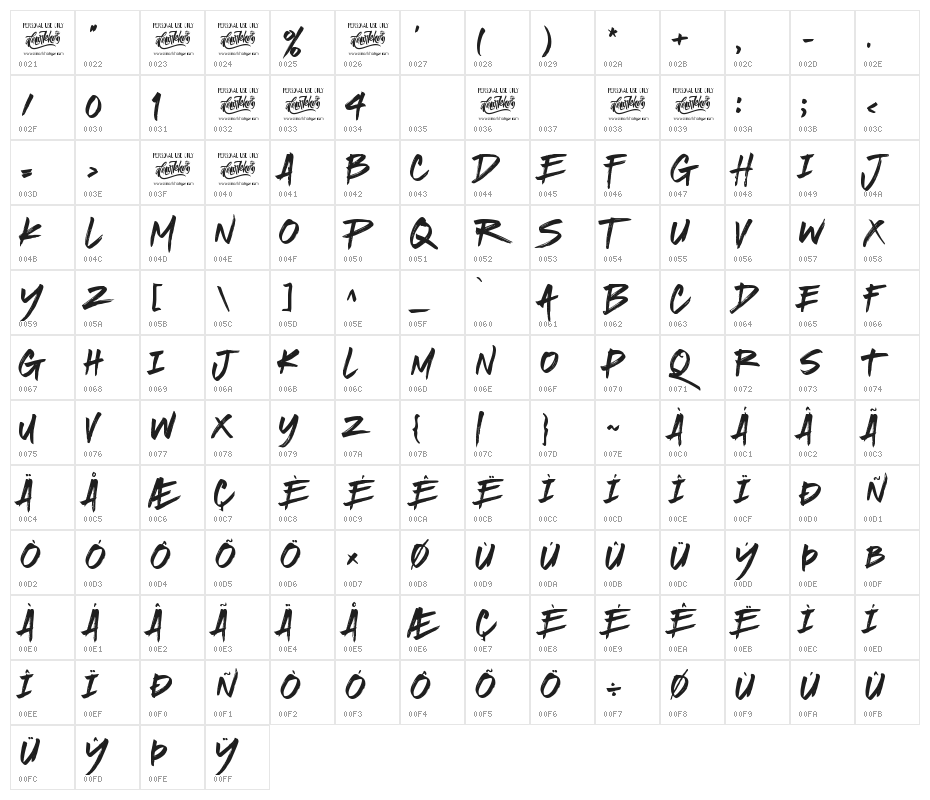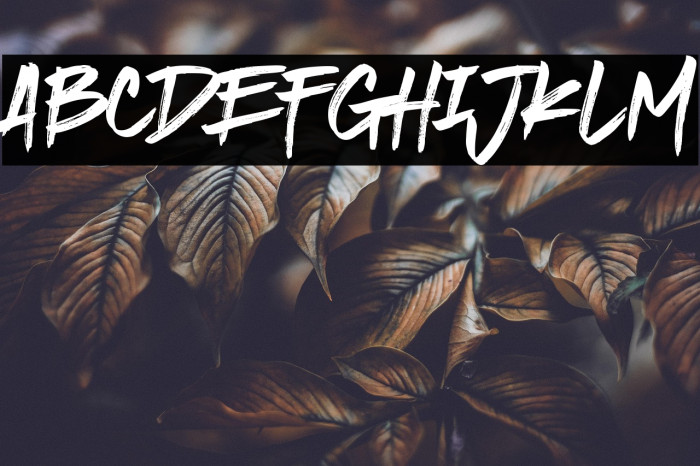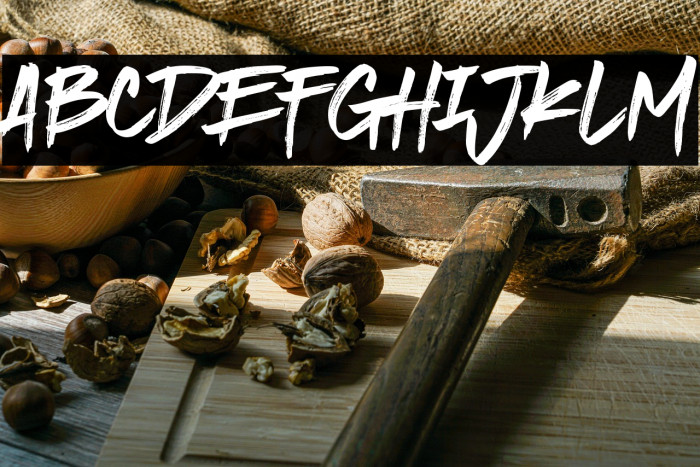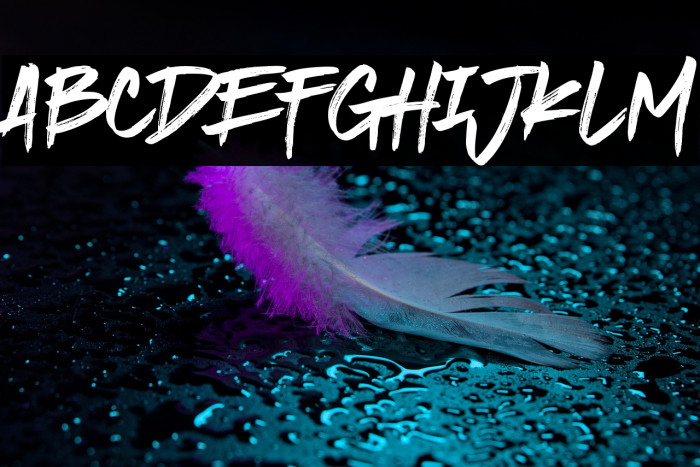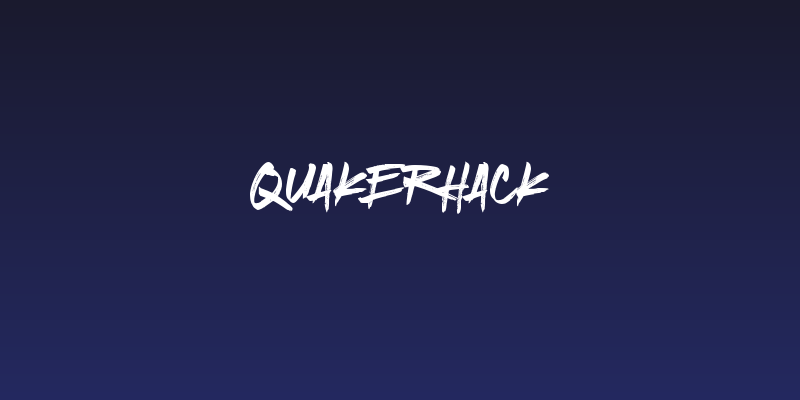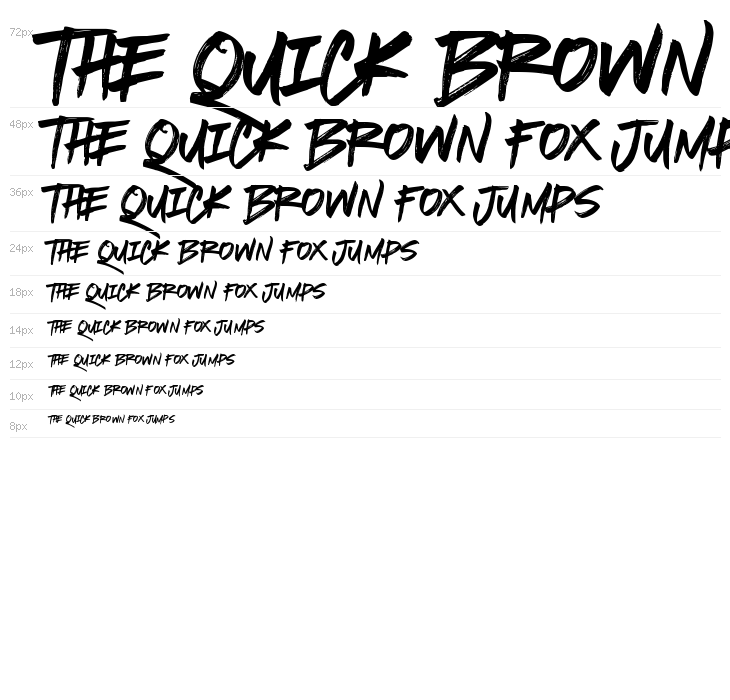
Quakerhack Font
Quakerhack Description
This font features a bold, brush-like style with dynamic strokes and a hand-painted appearance. The uppercase and lowercase letters exhibit a sense of movement and energy, with irregular edges and varying thicknesses that give it a raw, artistic feel. The numbers and special characters maintain this expressive style, making it ideal for creative projects. The overall design is both striking and informal, perfect for capturing attention.
| Proposed Projects | Ideal for posters, album covers, branding, and any project requiring a bold, artistic touch. |